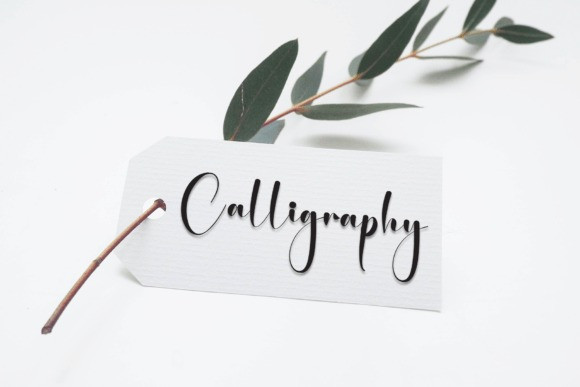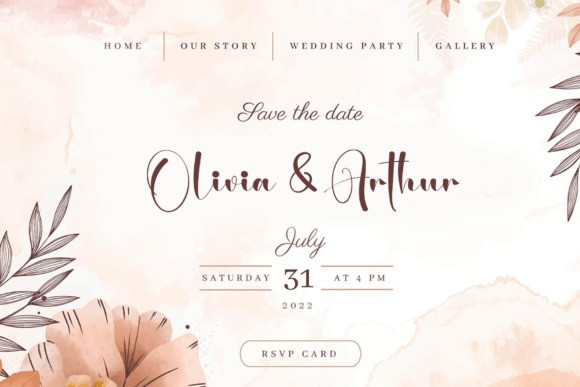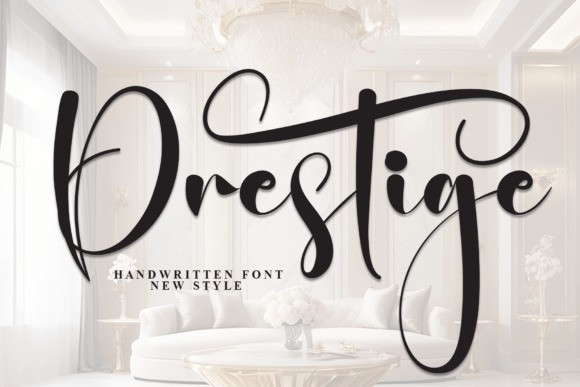
Prestige Script Typeface
Prestige Script Typeface is a beautiful handwritten font that looks like elegant, flowing writing. It has a personal touch, making it perfect for invitations, cards, and any project where you want to add a warm, friendly feel.